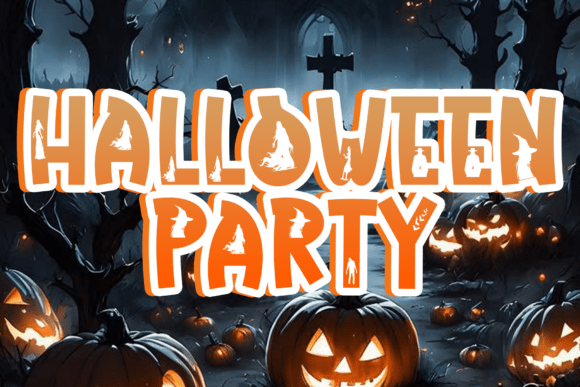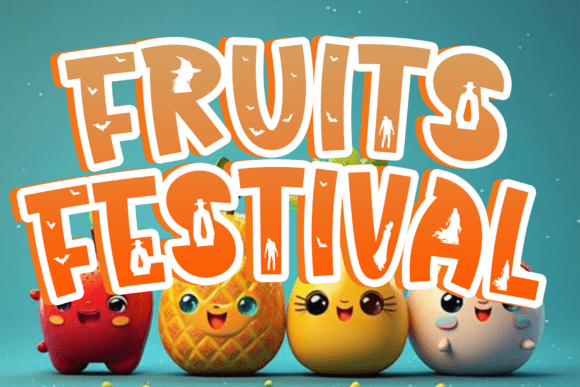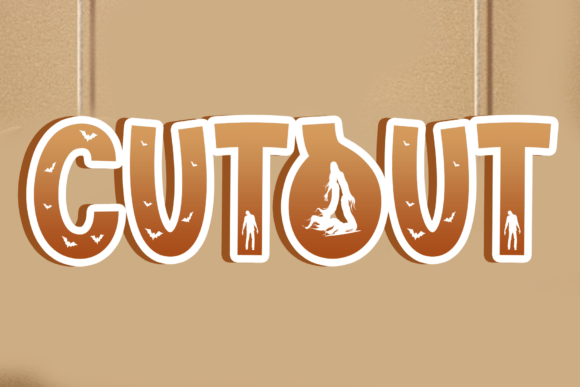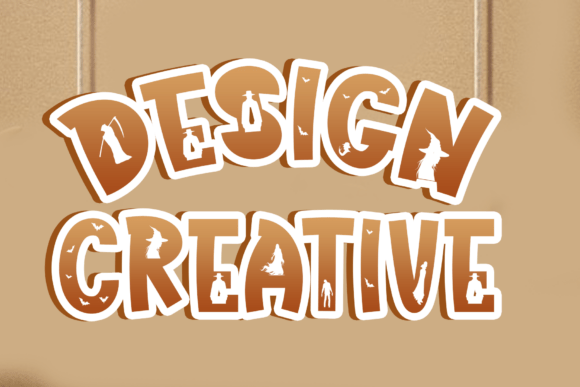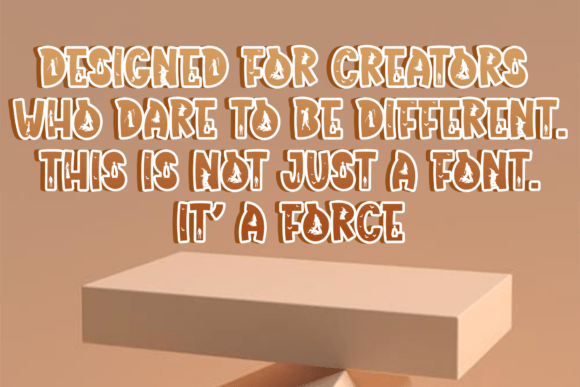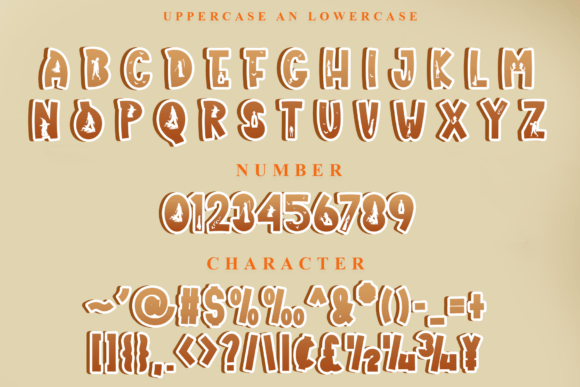
Introduction to Horor Killer Font
You’re sitting in front of your computer, staring at a blank canvas, waiting for that spark of creativity to ignite. Suddenly, the perfect font pops into your head – a bold, eye-catching display font that screams ‘I’m here to make a statement!’ And that’s exactly what Horor Killer Font is all about. This incredibly unique display font is designed to elevate your creative ideas to new heights, making it a must-have in your design arsenal.
Whether you’re working on a high-profile project or a personal design endeavor, Horor Killer Font has the potential to bring your vision to life. With its sleek, modern design and high-quality features, this font is the perfect addition to any design resource. And the best part? It’s free to download, making it accessible to designers of all levels.
Key Features of Horor Killer Font
- High-quality font design with a unique, eerie aesthetic, perfect for creative projects and design resources.
- Designed to be highly versatile, making it suitable for a wide range of applications, from horror-themed designs to minimalist art.
- Unique characteristics include bold, gothic-inspired lettering and intricate details, adding a touch of sophistication to any design project.
Honest Review: Horor Killer Font
I recently came across the Horor Killer Font, and I must say it’s been a game-changer for my creative projects. This font is perfect for adding a spooky twist to your design, whether it’s a horror-themed poster or a mysterious logo.
Here are some features that work well:
- High quality design that’s perfect for various design resources
- Great for creative projects that need a touch of horror or mystery
- Not ideal for projects that require a more modern or clean look
Overall, I’m impressed with the Horor Killer Font. It’s a great design resource that’s perfect for adding a touch of horror to your creative projects. While it may have some limitations, it’s definitely worth checking out if you’re looking for a unique and high-quality font.
Tips for Getting the Most Out of Horor Killer Font
Use the Horor Killer Font to create a bold and eye-catching design. Experiment with different font sizes, colors, and styles to find the perfect combination for your creative project.
The Horor Killer Font is perfect for horror-themed designs, such as movie posters, book covers, and video game titles. It’s also great for creating a spooky and eerie atmosphere in your design project.